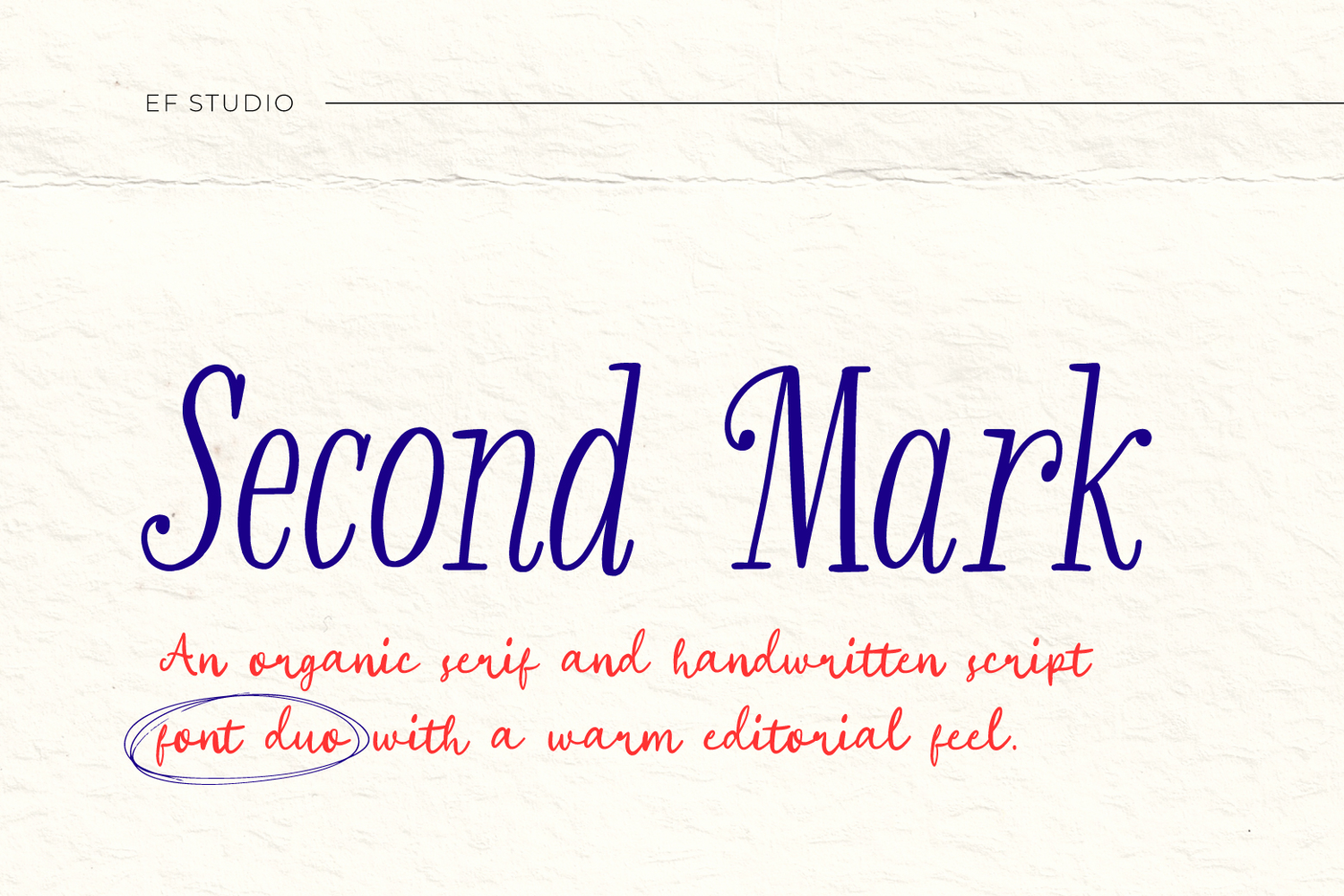
Second Mark - Organic Serif & Script
Second Mark is a font duo combining an organic serif with a raw handwritten script. The serif is designed for readability and editorial structure, while the script functions as a secondary accent for notes, captions, and expressive details. With natural stroke variation and a handcrafted feel, Second Mark is well suited for *editorial layouts, zines, photography books, journals, posters, and branding projects that require a quiet, human touch.
Second Mark supports uppercase and lowercase characters, basic punctuation, and multilingual Latin coverage. The handwritten script is intentionally irregular to retain an organic rhythm, while the serif maintains balanced proportions for consistent text flow. Designed to work as a pair, both styles allow clear typographic hierarchy across editorial layouts, print projects, and digital use.